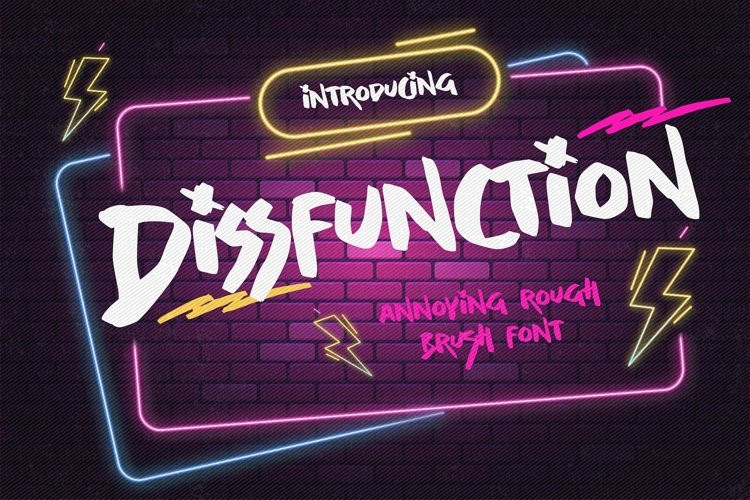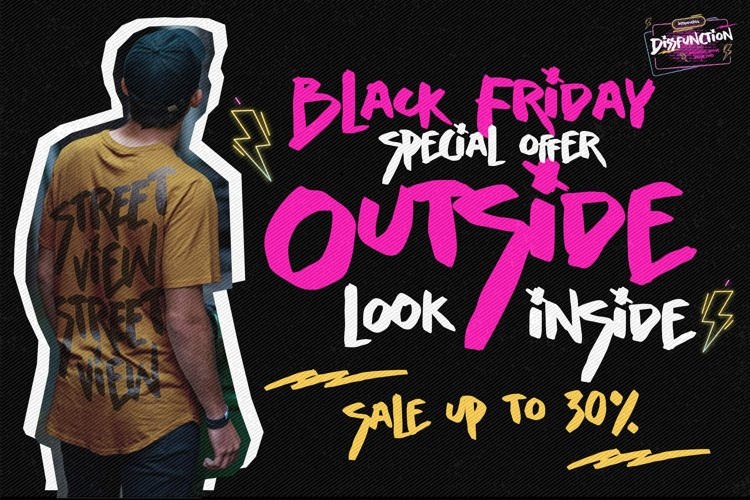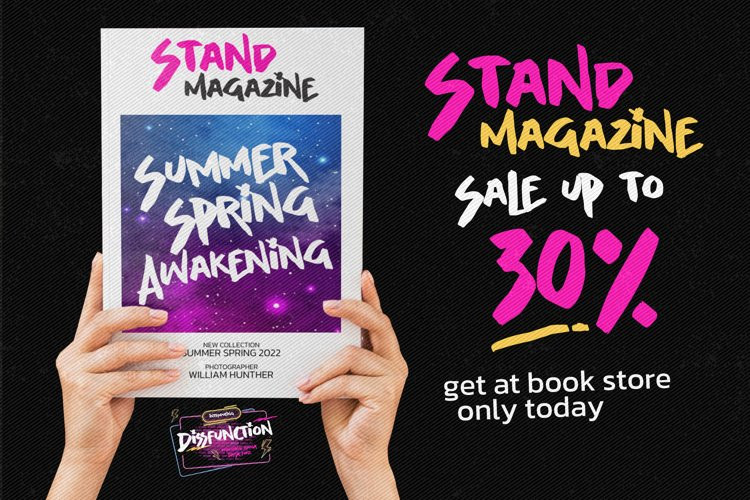
Dissfunction Font
Dissfunction FontHere comes a New font, Introducing Dissfuntion is a Annoying Rough Brush Font with a natural handwritten feel. This handmade font will make your design has a beautiful natural touch for each details. It is perfect for any design project as Invitation,logo, book cover, craft or any design purposes.
Dissfuntion That is has charming, authentic and relaxed characteristic more natural look to your text.